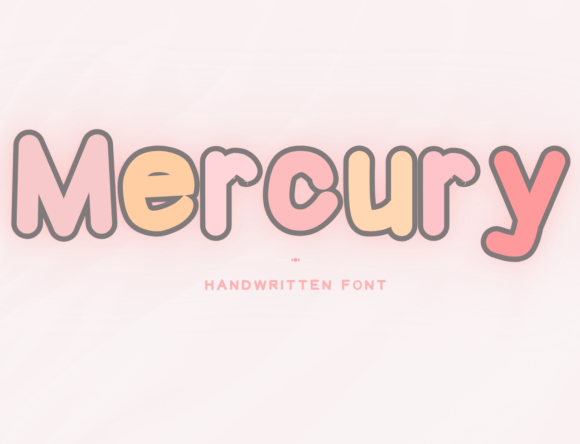
Introducing Mercury Font - A Playful Sans Serif with a Dash of Youthful Charm!
Prepare to be captivated by Mercury Font, a delightful sans serif font that exudes a youthful spirit. Its graceful lines and playful curves lend a touch of whimsy to your designs, ensuring they stand out from the crowd. Whether you're creating professional-level branding materials, eye-catching labels, or sleek websites, Mercury Font is your go-to choice.
With its versatility, Mercury Font is not limited to professional settings. It shines equally bright in casual designs, adding a touch of charm to your packaging, posters, flyers, and social media posts. Spread joy and inspiration with your heartfelt quotes, make your invitations pop with personality, and design special occasion cards that leave a lasting impression.
Mercury Font's adaptability makes it a perfect match for a wide range of projects. Its playful nature pairs beautifully with T-shirt designs, allowing you to express your creativity and make a unique fashion statement. Unleash your inner artist and let Mercury Font transform your designs into captivating masterpieces.